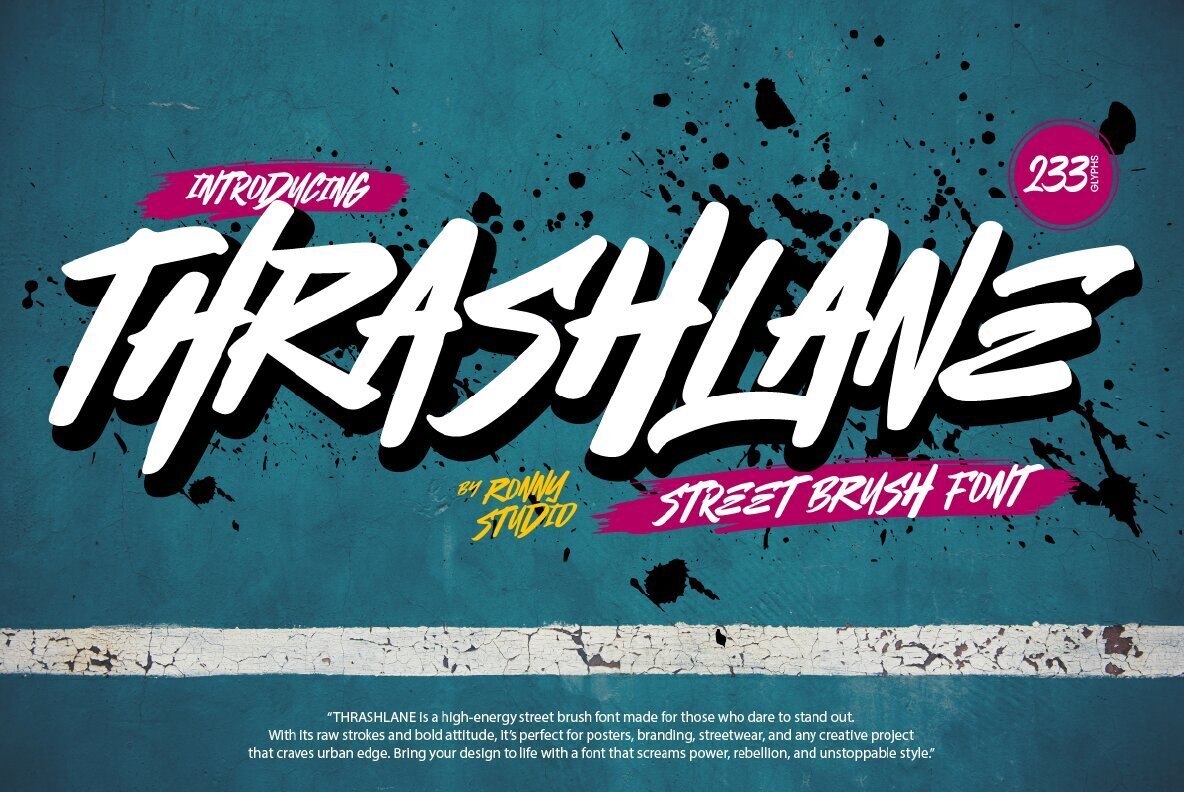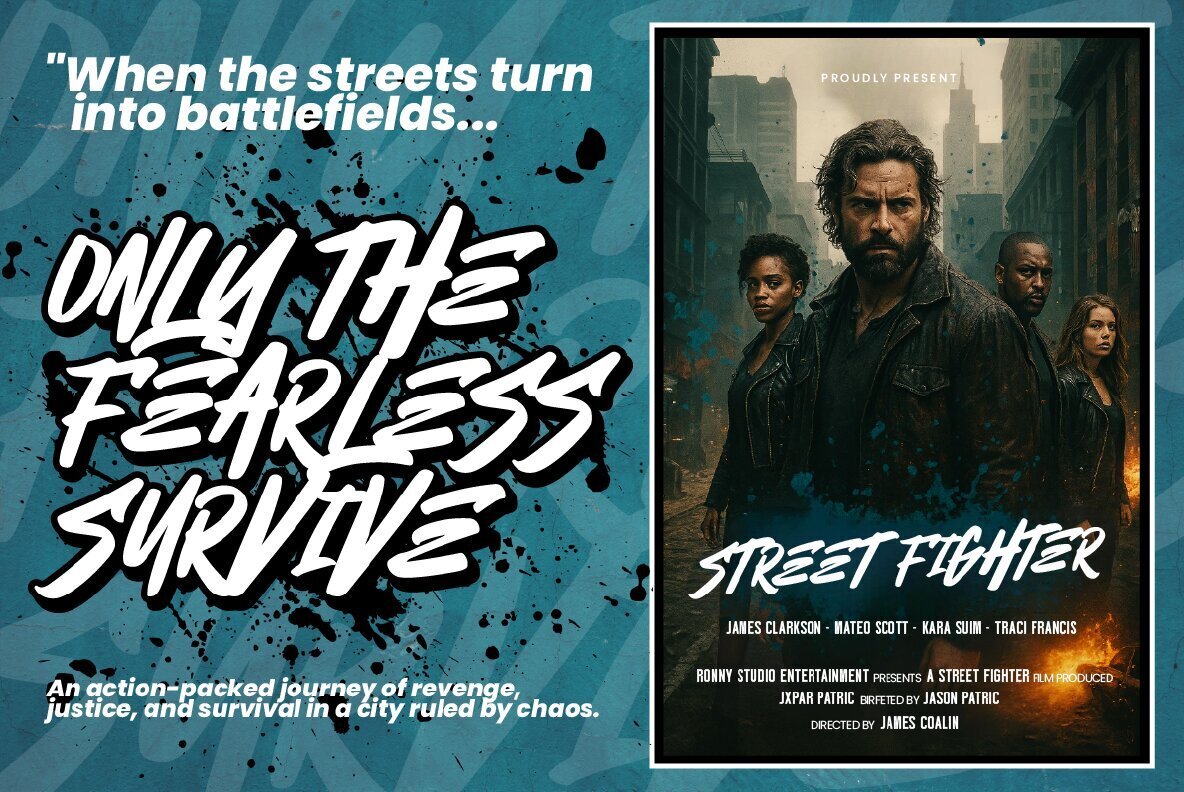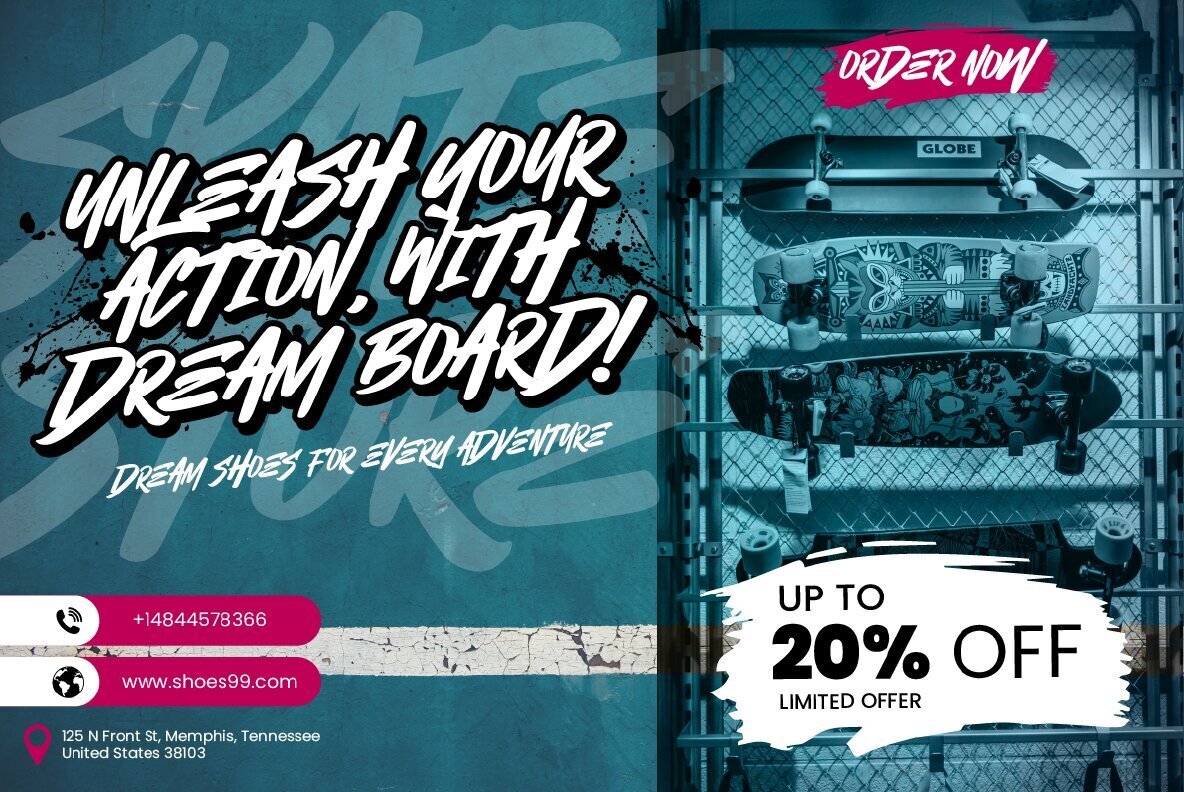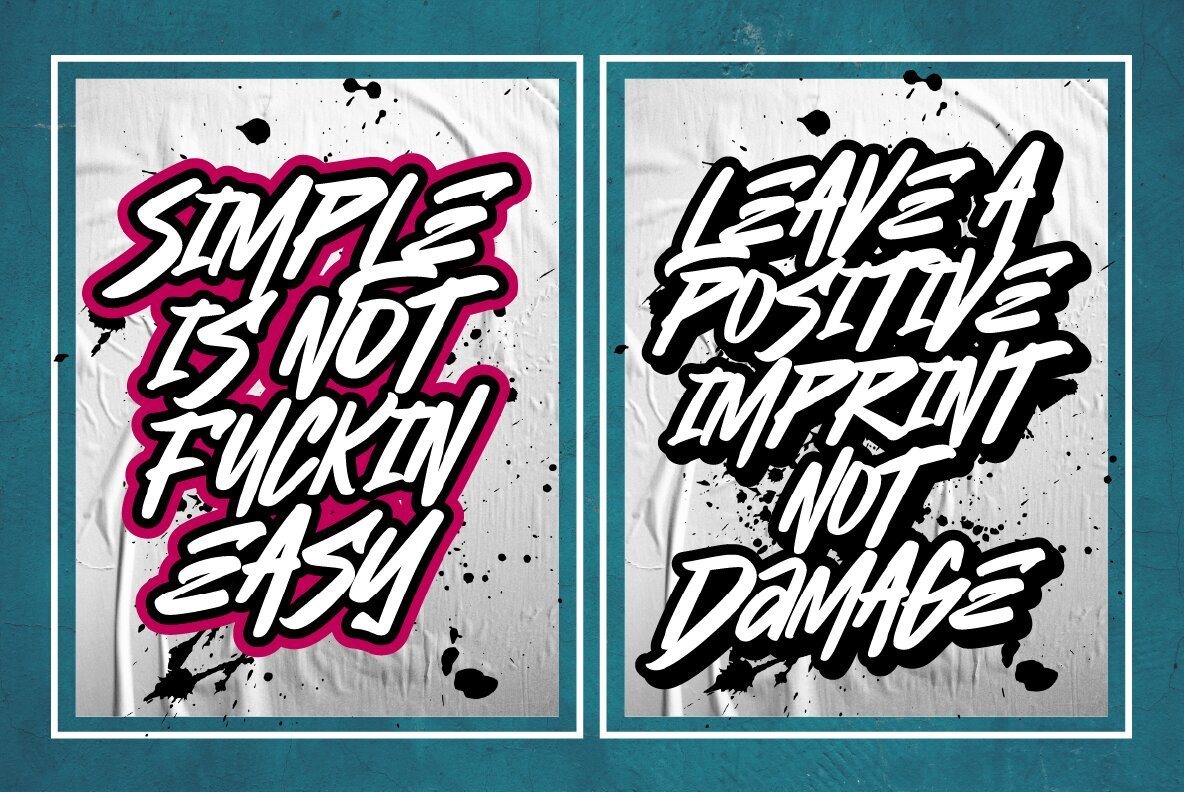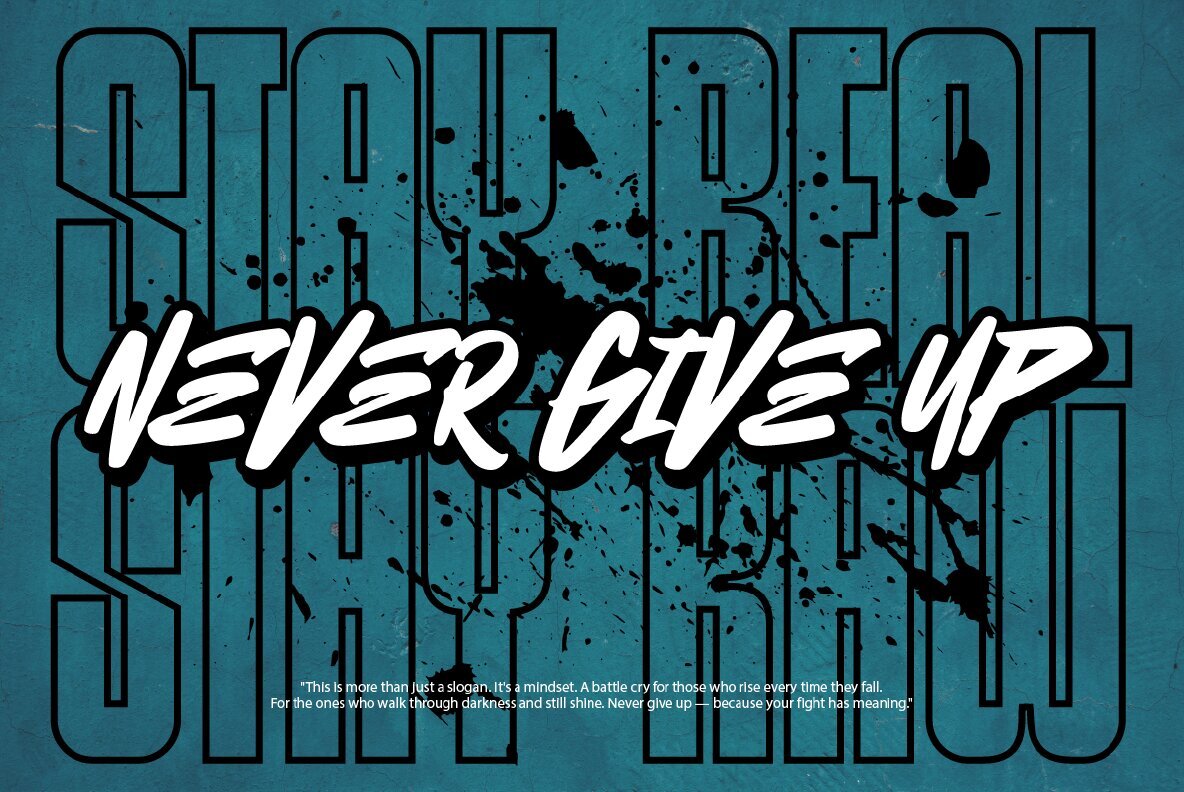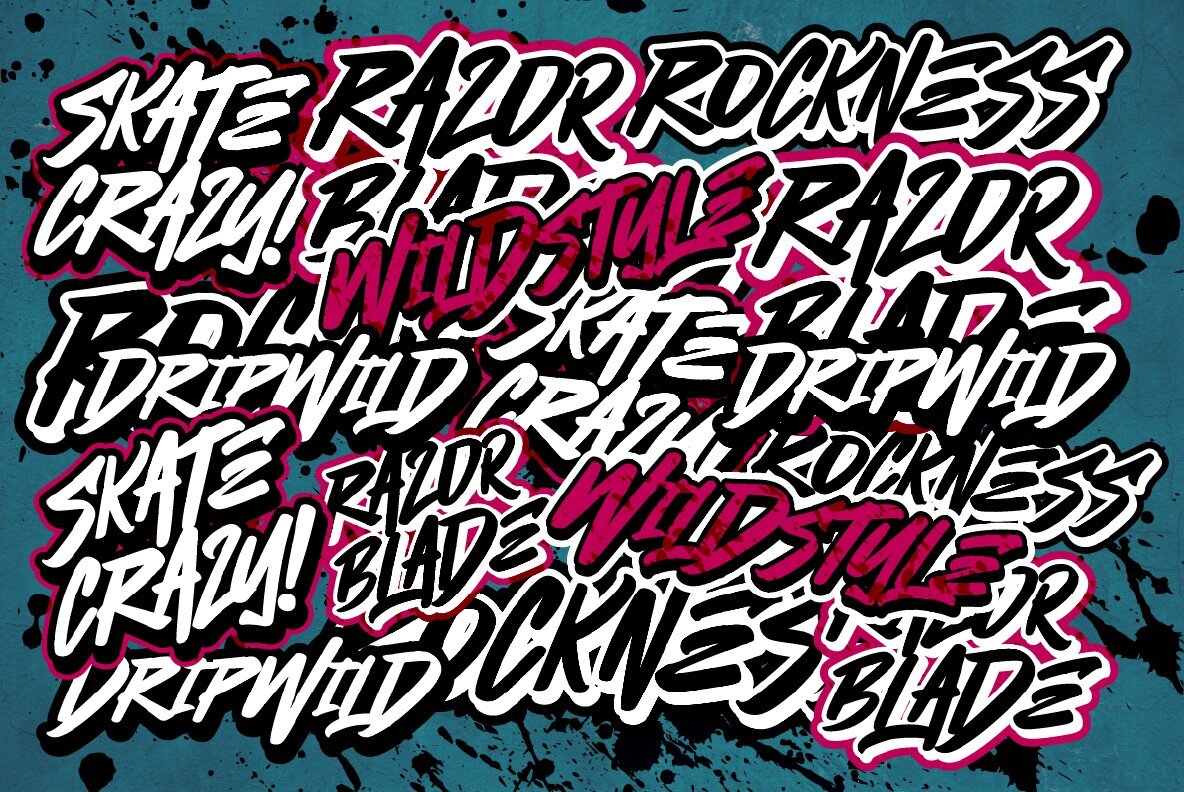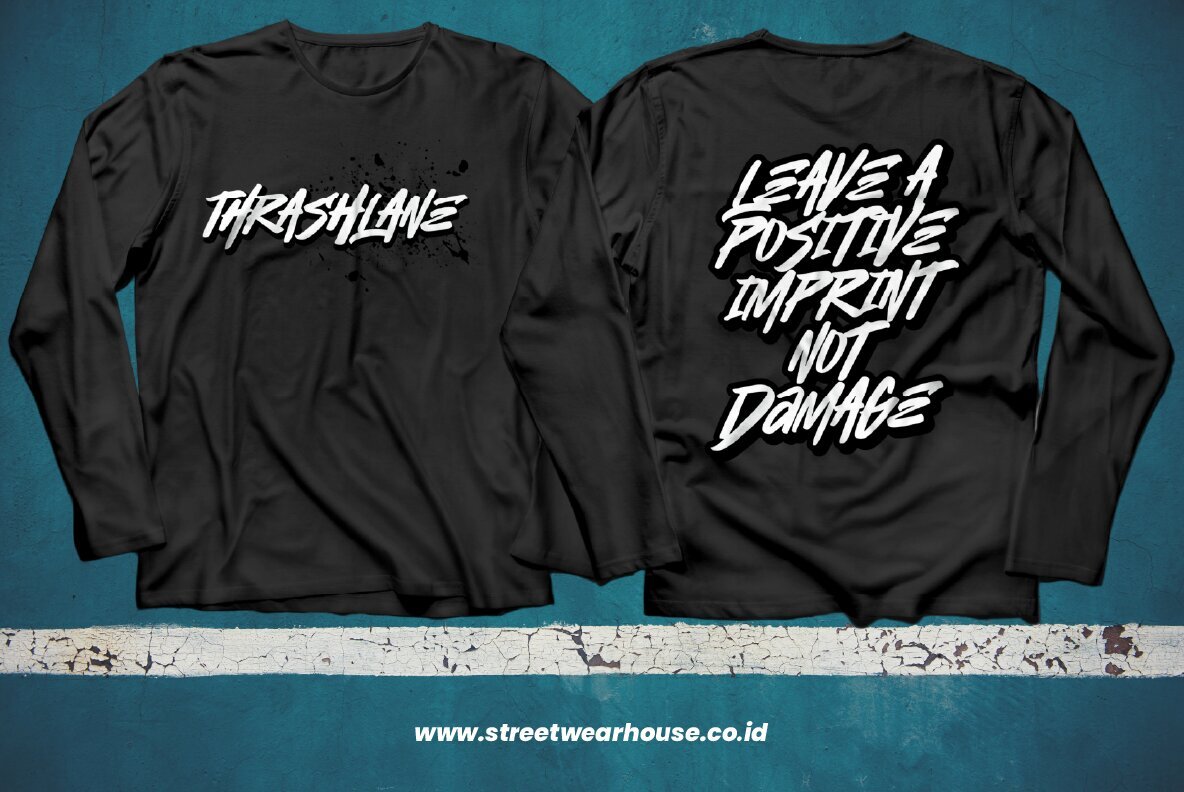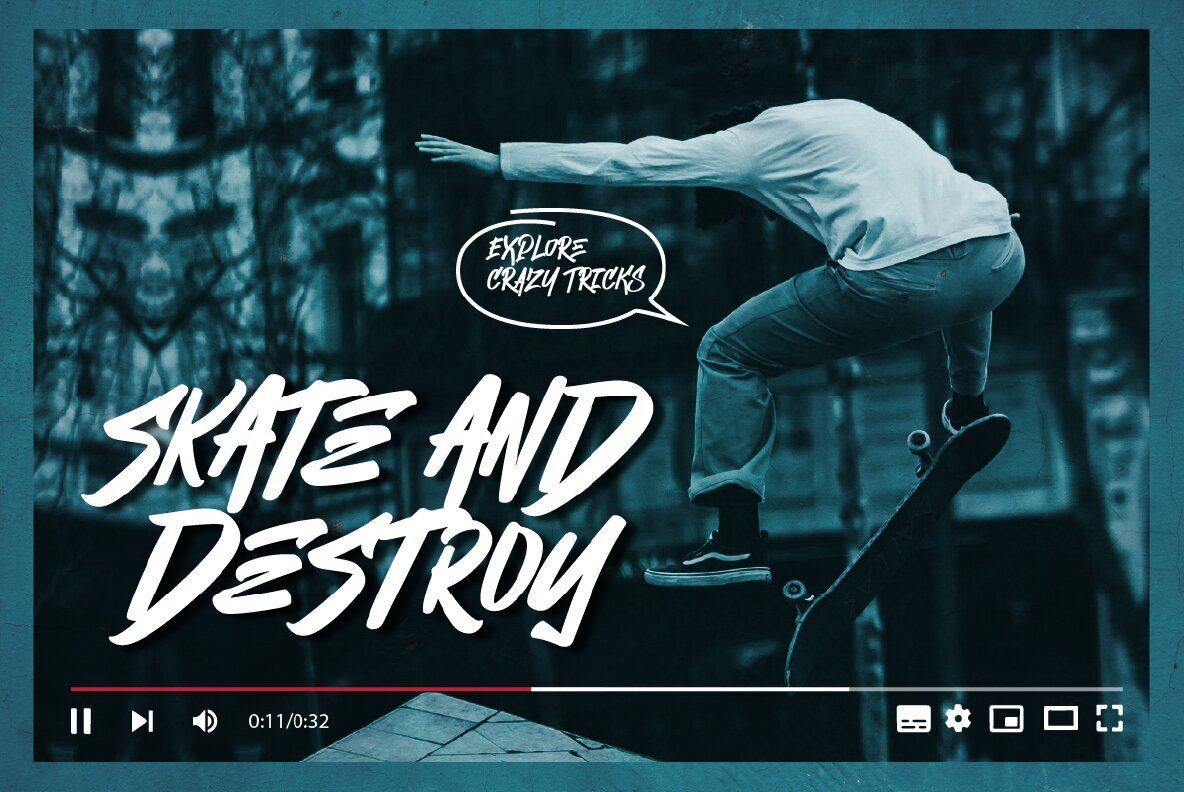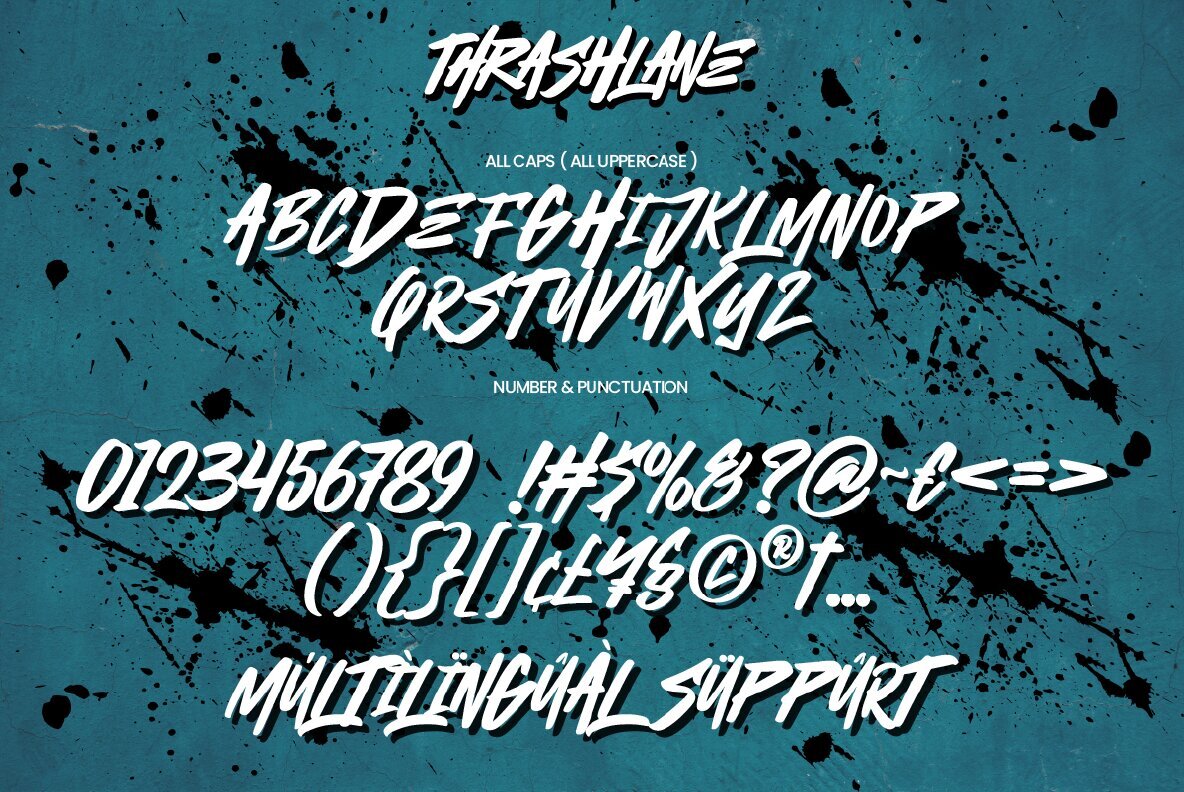
Thrashlane Font
Thrashlane
Dive into the vibrant world of skate culture and graffiti with Thrashlane. This powerful brush typeface captures the raw energy of rebellious street spirit, offering strokes that are loud and unapologetically bold. Perfect for designers who push boundaries, Thrashlane makes an impact with every letter. Whether designing apparel, album covers, posters, or action-packed branding, this typeface delivers an unfiltered attitude that's both striking and resilient. Tailored for those who embrace creativity without limits, its street-smart style amplifies urban authenticity.Thrashlane: A Brush Typeface Fueled by Rebellion